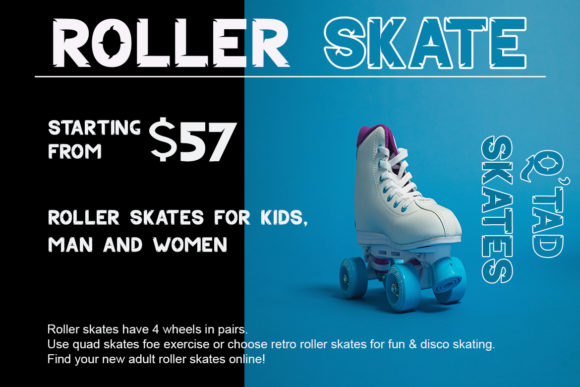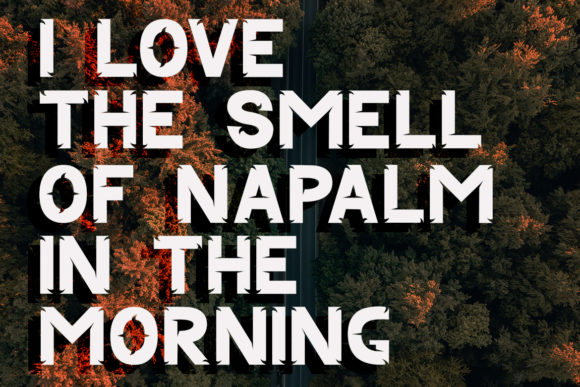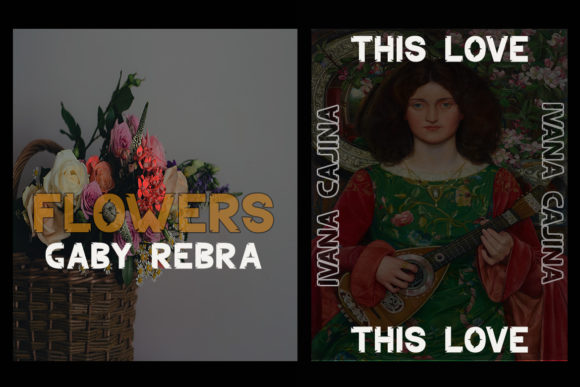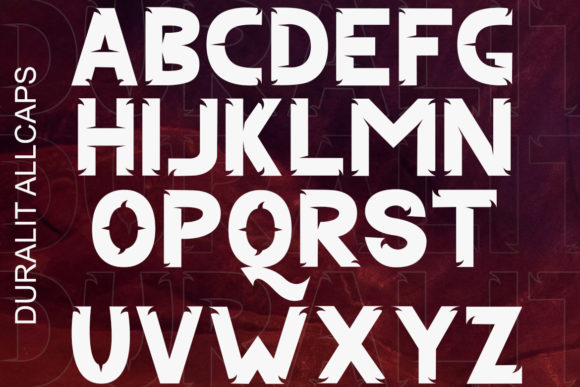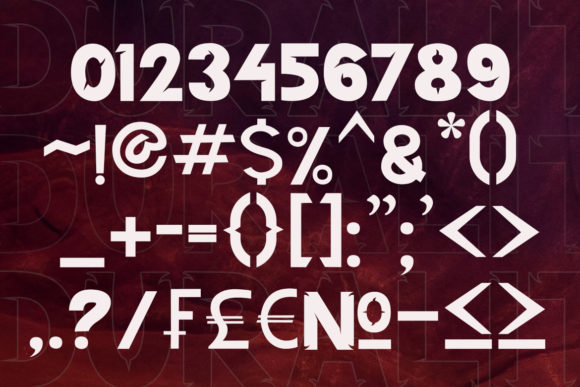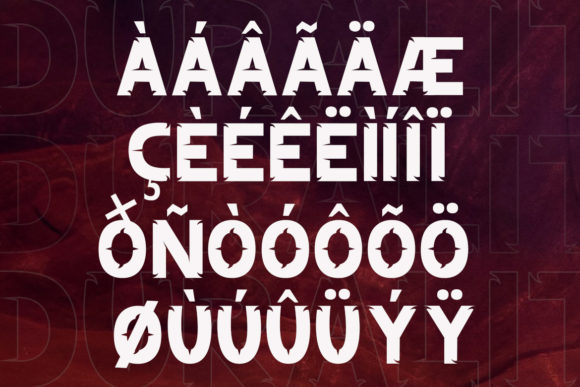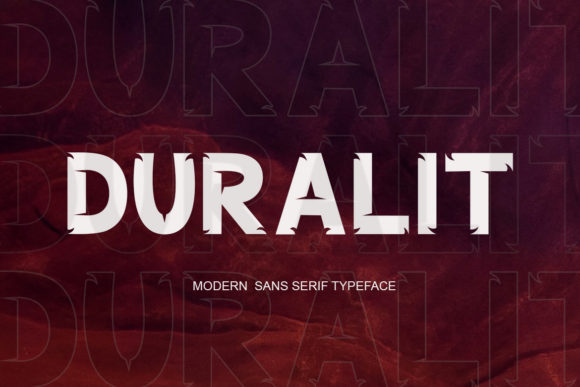
Duralit Font: The Ultimate Choice for Bold and Creative Designs
In the world of typography, fonts play a crucial role in making a design stand out. Among the numerous font options available, Duralit font has gained significant attention for its bold and chunky sans serif style. In this article, we’ll explore the features and benefits of Duralit font, and how it can elevate your design projects.
What is Duralit Font?
Duralit is a bold sans serif font designed to make a statement. Its chunky characters are perfect for a wide range of designs, from creative projects to commercial applications. The font’s unique style is characterized by its clean lines, bold strokes, and geometric shapes. This distinctive look makes Duralit font an excellent choice for designers and crafters looking to add a touch of personality to their work.
Key Features of Duralit Font
• Bold and Chunky Style: Duralit’s bold and chunky characters make it perfect for headlines, titles, and emphasis text.
• Sans Serif Design: The font’s sans serif design ensures clean and modern look, suitable for a wide range of applications.
• Versatile: Duralit font can be used in various design projects, including logos, posters, flyers, and more.
• Easy to Read: Despite its bold style, Duralit font is easy to read, making it suitable for body text and captions.
Benefits of Using Duralit Font
Duralit font offers several benefits that make it an attractive choice for designers and crafters:
• Attention-Grabbing: The font’s bold style grabs attention and makes your design stand out.
• Time-Saving: With Duralit font, you can create stunning designs quickly, without spending hours on typography.
• Flexibility: The font’s versatility allows you to use it in various design projects, from digital to print.
• Imagination Unleashed: As the font’s creators say, “The only limit is your imagination!” Duralit font encourages creativity and experimentation.
Use Cases for Duralit Font
Duralit font is suitable for a wide range of design projects, including:
• Logos and Branding: Use Duralit font to create bold and memorable logos.
• Posters and Flyers: The font’s chunky style makes it perfect for eye-catching posters and flyers.
• Digital Graphics: Duralit font is suitable for social media graphics, blog posts, and website headers.
• Crafting and DIY Projects: Use Duralit font to add a personal touch to your crafting and DIY projects.
Tips for Using Duralit Font
To get the most out of Duralit font, follow these tips:
• Experiment with Colors: Try different color combinations to make your design pop.
• Mix and Match Fonts: Combine Duralit font with other fonts to create a unique look.
• Play with Sizes: Use different font sizes to create visual hierarchy and emphasis.
Font Name Duralit Font
Author Sealoung
Duralit font is a powerful tool for designers and crafters looking to add a bold and creative touch to their projects. Its chunky sans serif style, versatility, and ease of use make it an excellent choice for a wide range of applications. With Duralit font, the possibilities are endless, and the only limit is your imagination!